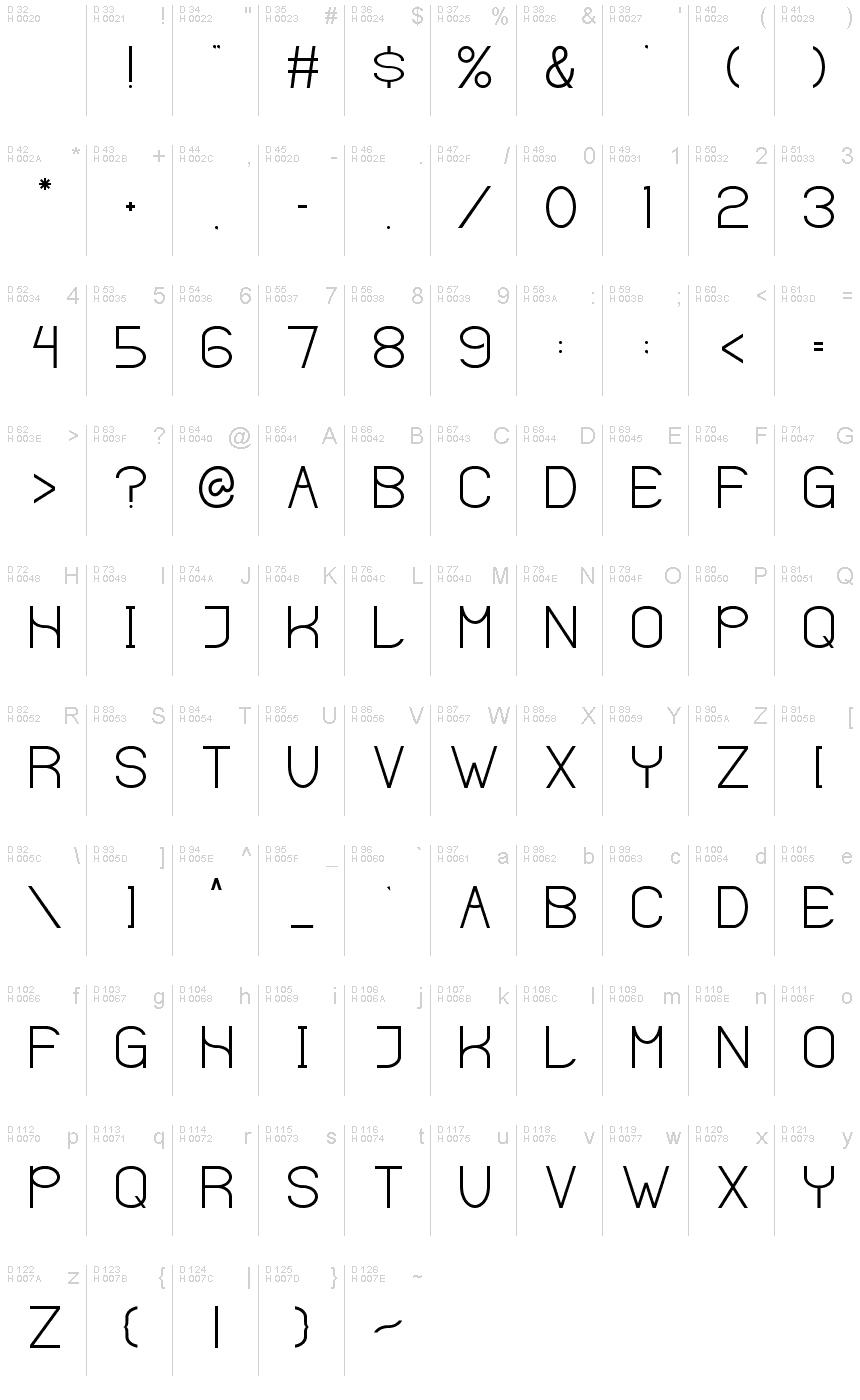
Bali Culture Regular
Bali Culture is a stunning display font designed by Rangga Putra Budi Pratama, inspired by the intricate and ornate Balinese culture. With its light weight and unique Balinese-style, this font is perfect for adding a touch of elegance to any creative project. From branding materials to invitations, posters to social media graphics, Bali Culture will help your designs stand out with its exotic charm. Whether you're looking to create something traditional or modern, Bali Culture is a versatile font that will add a unique flair to all of your projects.